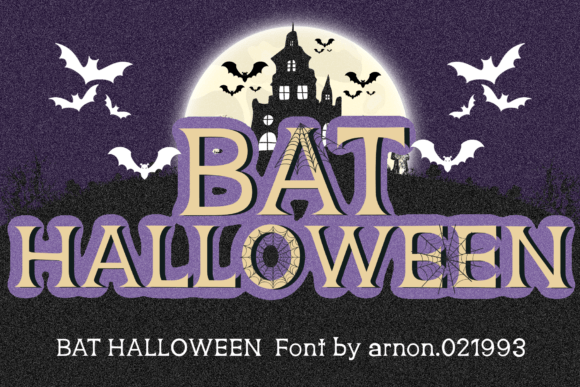
Enter the realm of haunting elegance with Bat Halloween Font, a display font family that casts a spell of captivating creepiness over your designs. Arnon.021993, the font's creator, has masterfully crafted Bat Halloween to embody the very essence of eerie sophistication, making it the perfect choice for conjuring up spine-tingling Halloween designs.
With its extra Halloween elements, Bat Halloween Font possesses an unmatched ability to transform ordinary text into a chilling spectacle. Each letter dances across the page like a mischievous spirit, adorned with intricate details that evoke the haunting beauty of a moonlit graveyard. From the wicked curls of the serifs to the ghostly whispers of the ligatures, every element of Bat Halloween Font conspires to create a visual symphony of delightful dread.
Unleash your creativity and let Bat Halloween Font take your Halloween-themed designs to new heights of spooktacular brilliance. Whether you're conjuring up spine-tingling party invitations, crafting eerie posters, or creating hauntingly beautiful crafts, Bat Halloween Font will effortlessly elevate your creations to legendary status.
Step into the enchanting world of Bat Halloween Font today and let your imagination run wild. As the clock strikes midnight and the veil between worlds thins, Bat Halloween Font will guide you on a journey through the supernatural, transforming your designs into captivating works of haunting art. Embrace the darkness and let the spooky allure of Bat Halloween Font cast its spell on you.